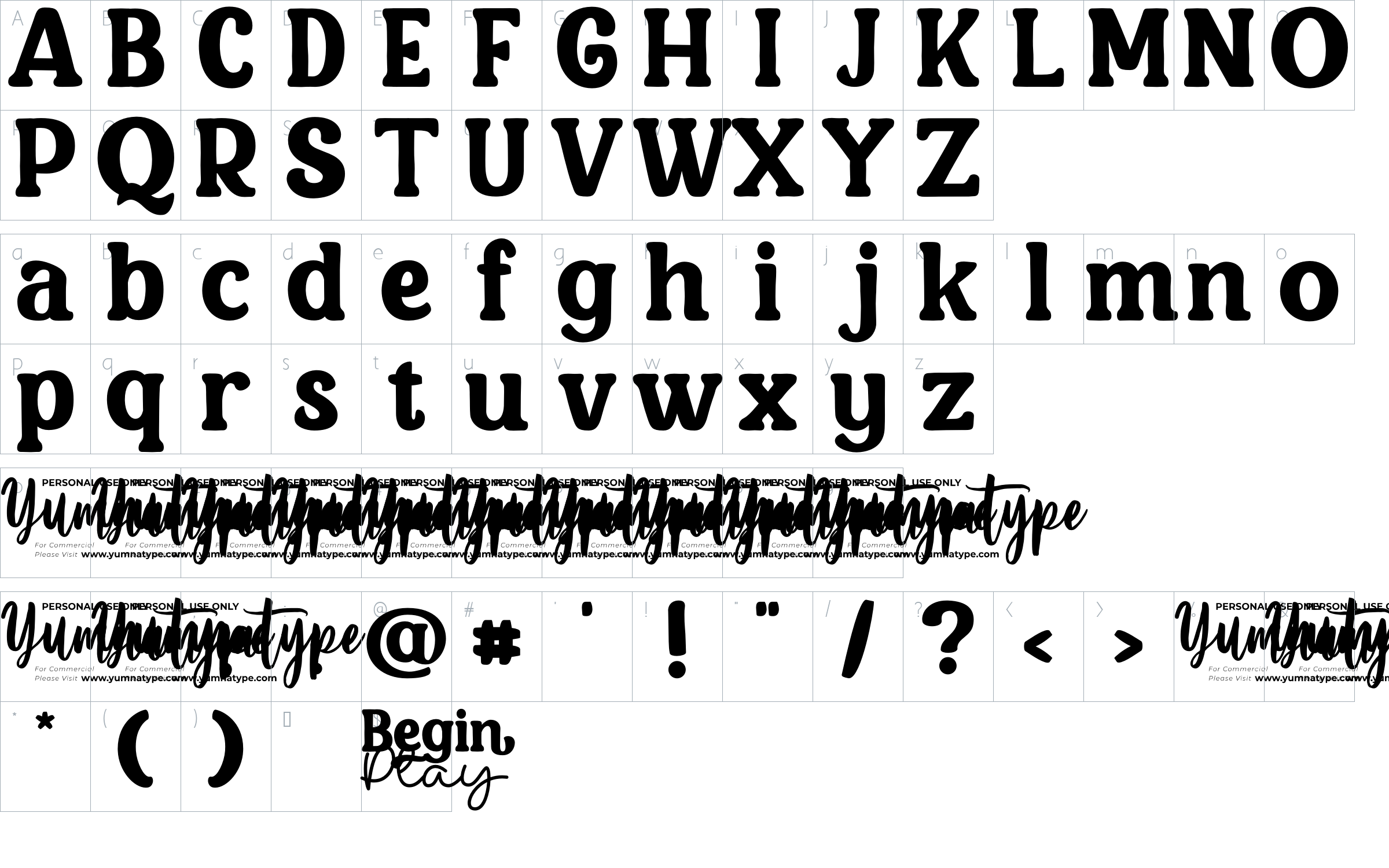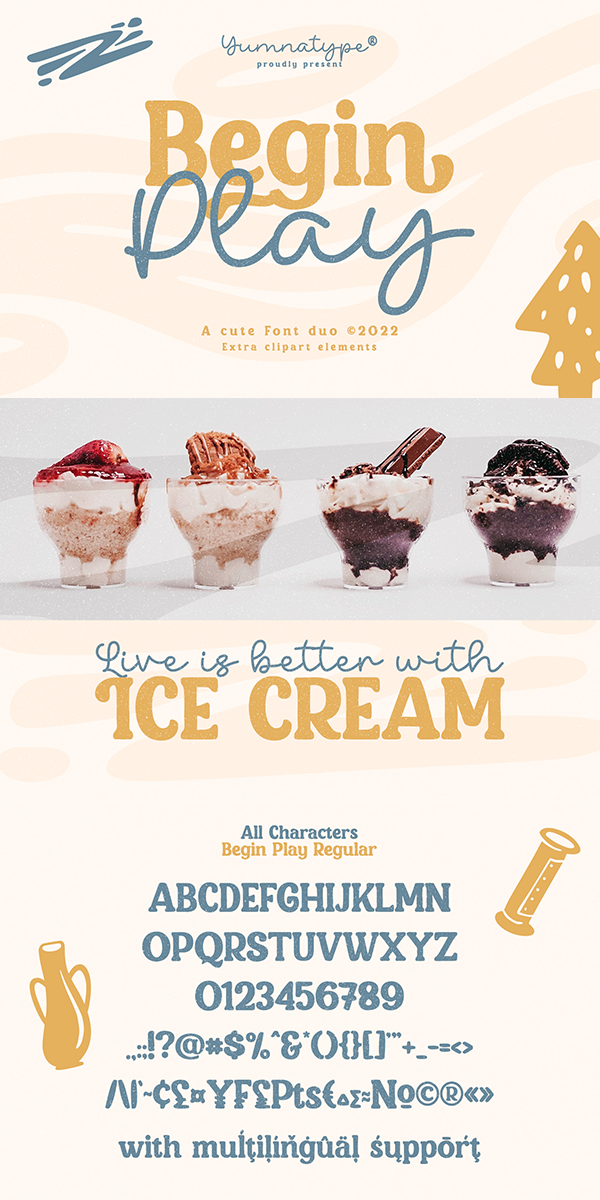
Begin Play Font
About Begin Play
Begin play is a font duo made from combination between script and display font style you can mix, match, and call your own. The script style has a cute touch that is well pair with the elegant sans serif font. This font duo maintain the readability even at small sizes.
It is suitable for branding, logos, social media quotes, stickers, posters, vintage designs, wall art, merchandise, social media, and many more. Get more inspiration by seeing the preview.